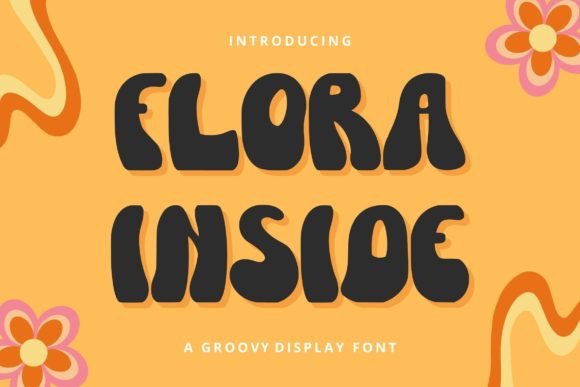
Flora Inside is the retro-inspired display font you'll adore. Its groovy handwritten style is brimming with personality, making it perfect for branding projects, logos, and wedding invitations that exude a laid-back, bohemian vibe.
With Flora Inside, your designs will dance to the rhythm of the 70s. Imagine your logo adorned with its whimsical characters, inviting customers to embark on a groovy adventure. Picture wedding invitations that capture the free-spirited essence of your special day.
But Flora Inside's charm extends beyond aesthetics. Its unmistakable retro flair is a nostalgic nod to the carefree days of peace and love. It's a font that speaks to the heart, evoking a sense of nostalgia and carefree abandon.
Whether you're a designer seeking a touch of retro magic or a bride-to-be dreaming of a bohemian celebration, Flora Inside is the font that will make your vision come alive. Its versatility knows no bounds, empowering you to create designs that are both eye-catching and deeply meaningful.
So dive into the world of Flora Inside and let your designs bloom with retro charm and groovy vibes.